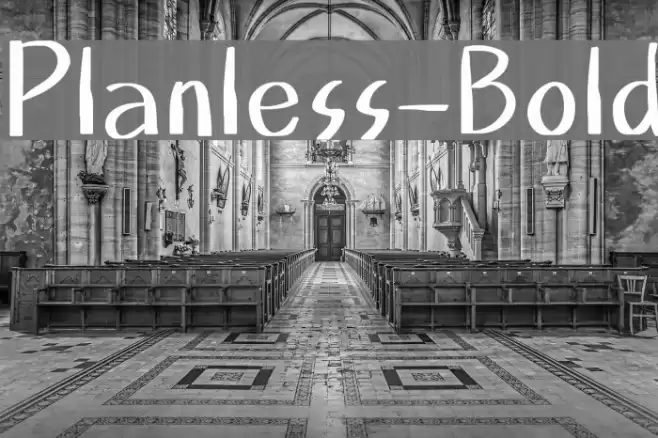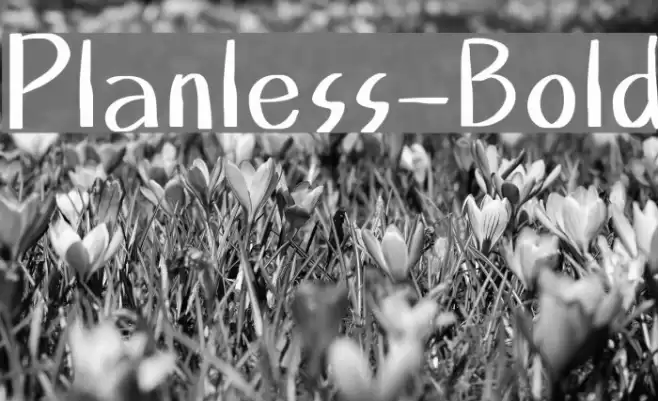
Planless-Bold Font
Planless-Bold Description
This font features a playful and dynamic style with a handwritten appearance. The letters are slightly irregular, giving it a casual and informal feel. The strokes vary in thickness, adding to its lively character. Uppercase and lowercase letters maintain a consistent style, with unique flourishes on certain characters. The numerals and special characters are designed to match the overall whimsical aesthetic, making it suitable for creative and artistic projects.
A playful, handwritten-style font with dynamic strokes and irregular shapes from Uncategorized fonts.
- Proposed Projects: Ideal for children's books, creative posters, greeting cards, and playful branding.
- Use Case: Headlines, Logos, Creative projects